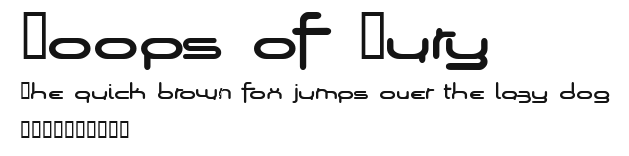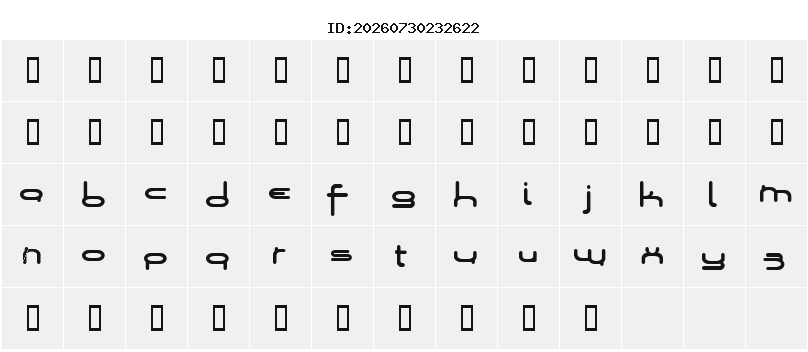
Loops of Fury Preview
• Font Name: Loops of Fury
• Font Style: Wide
• Font ID: Macromedia Fontographer 4.1.4 Loops of Fury Wide
• Full Font Name: Loops of Fury Wide
• PostScript Name: LoopsofFuryWide
About Loops of Fury.ttf
Loops of Fury.ttf is a modern, elegant sans-serif font designed for ultimate readability and visual harmony. Perfect for branding, headlines, web design, and print materials.